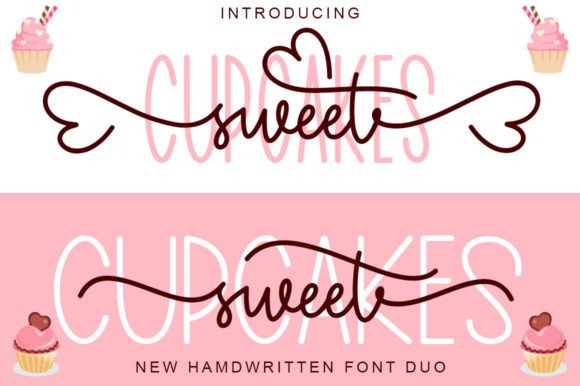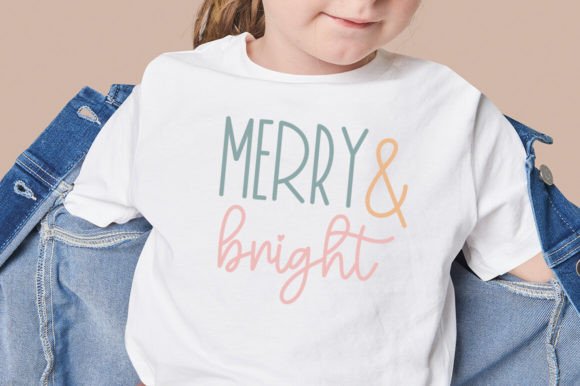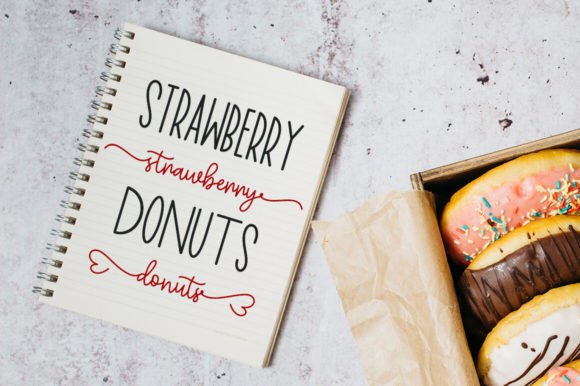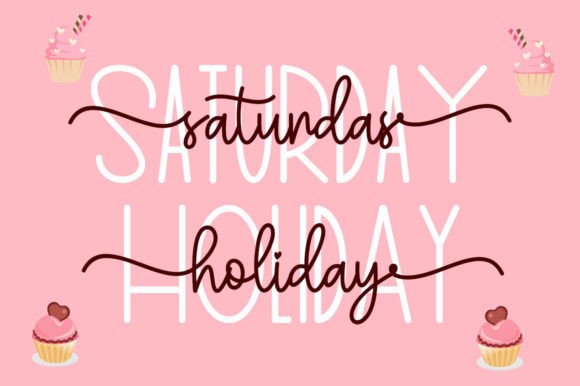
Cupcakes Sweet Duo Font
About the Cupcakes Sweet Duo Font
We are excited to introduce Cupcakes Sweet Duo Font, a must-have typeface for any serious designer. Introducing Cupcakes Sweet, a harmonious dual font that marries the elegance of sans serif and the charm of a script. This divine typeface imbues each application with a hint of romance, making it an irresistible choice for endearing greeting cards or captivating headlines. Thanks to the integrated PUA encoding, Cupcakes Sweet Duo makes every glyph and ligature effortlessly accessible. The resulting seamless integration elevates any design canvas, effortlessly merging typographic charm with functional brilliance.
Cupcakes Sweet Duo Font Usage Examples